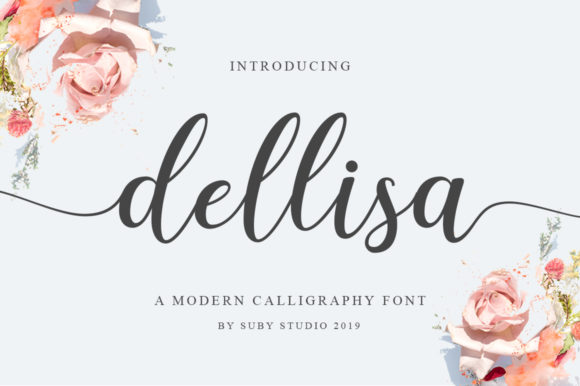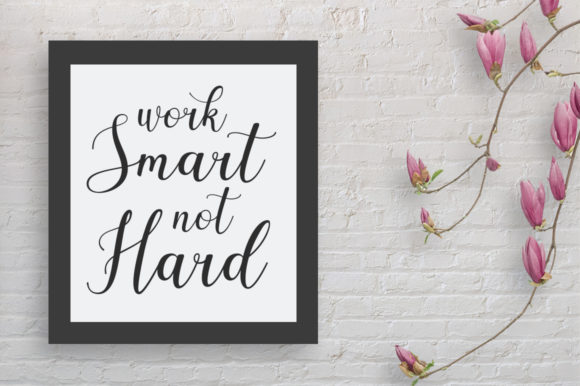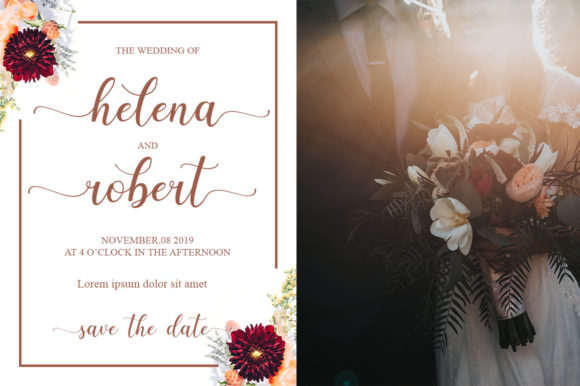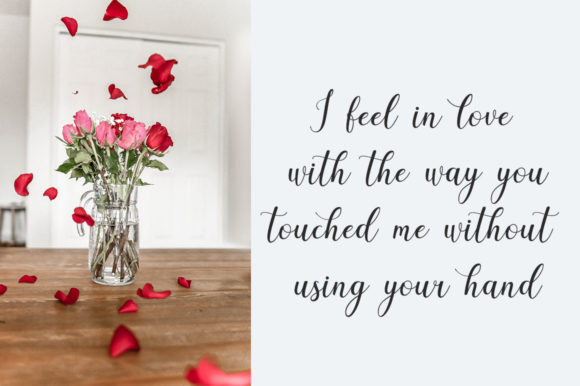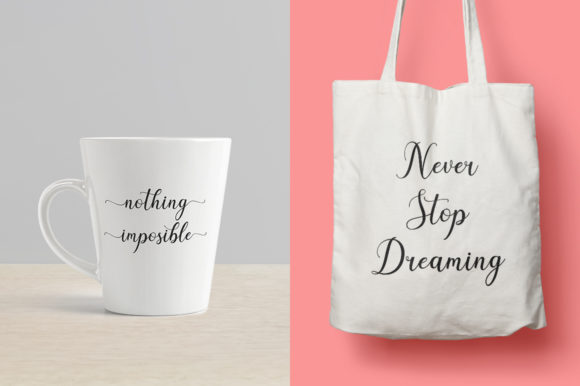
Dellisa Font
About Dellisa Font
Dellisa is a modern and beautiful calligraphy font. It’s perfect for quotes, wedding invitations, clothing, and apparel.